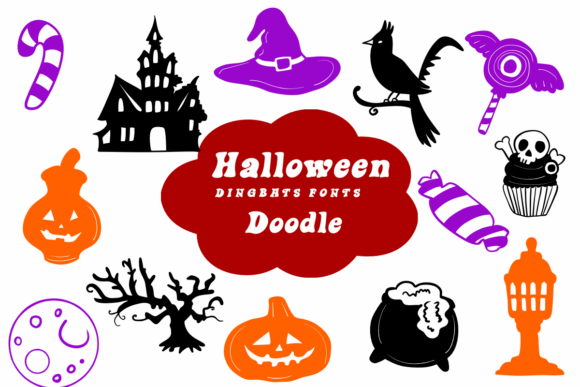
Enter the Halloween Doodle Font, a delightful dingbats font that brings a spooky theme to life. This versatile font is perfect for wedding invitations, DIY projects, decorations, logos, and many other creative ideas. With its playful and whimsical design, it’s sure to add a touch of magic to any project. For designers, the Halloween Doodle Font is a valuable addition to their toolkit, offering endless possibilities for creative expression and inspiration.
Halloween Doodle Font Key Features
- Unique Doodle Design: The Halloween Doodle Font features a playful, hand-drawn design with doodle elements, perfect for adding a spooky touch to your designs.
Halloween Doodle Font Review
I’ve had the chance to play around with the Halloween Doodle Font, and I must say, it’s a unique addition to any project. ✨ The font’s playful, whimsical feel makes it perfect for Halloween-themed designs, parties, or even spooky invitations.
- The font’s doodle-like design is full of character, adding a fun and creative touch to any text.
- It’s incredibly versatile, suitable for a wide range of applications, from kids’ parties to adult-themed events.
- The font comes in both uppercase and lowercase letters, making it easy to use in various design contexts.
However, there are a few limitations to consider: ⚠️ The font’s design can be quite busy, which may make it difficult to read at smaller font sizes.
Overall, I think the Halloween Doodle Font is a great choice for anyone looking to add some spooky flair to their designs. While it may not be suitable for all applications, its unique design and versatility make it a standout option for Halloween-themed projects. With a little creativity, you can use this font to create some truly memorable designs.
Use the Halloween Doodle Font for:
- Halloween-themed invitations and party decorations.
- Spooky social media graphics and posts.
- Creepy craft projects and DIY decor.
For the most effective use of the font, experiment with different font sizes, colors, and styles to create a spooky and festive atmosphere.
Q: Does the Halloween Doodle Font include any special characters or glyphs?
Yes, the Halloween Doodle Font includes a range of special characters and glyphs, including accented letters, punctuation marks, and symbols. These characters are designed to match the playful, doodle-like aesthetic of the font.